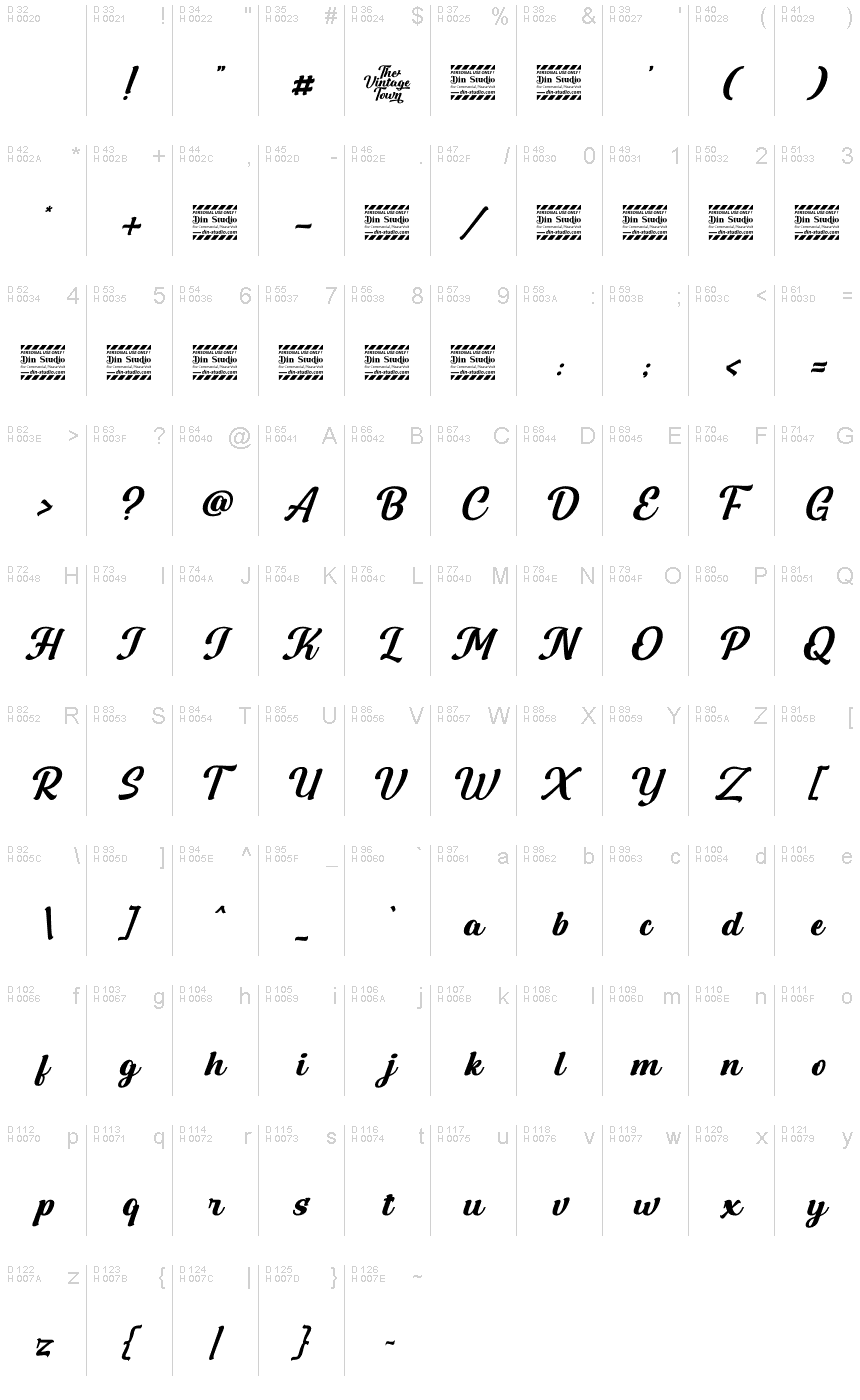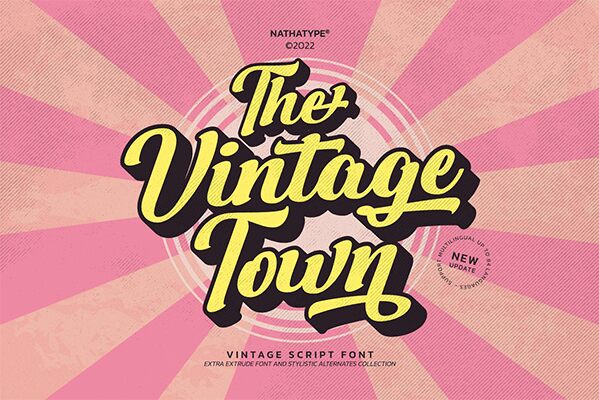
The Vintage Town
The Vintage Town, designed by Din Studio, is a stunning vintage script font that adds an air of nostalgia and charm to any project. This semi-bold font features an intricate cursive style with flowing serifs and graceful curves that evoke images of old-world elegance. The Vintage Town is perfect for a wide range of projects, from wedding invitations and event posters to branding materials for boutique businesses or restaurants. Its unique style brings a touch of sophistication to any design while still maintaining its vintage appeal. With various options in font width, this versatile typeface can easily fit into any project you have in mind!